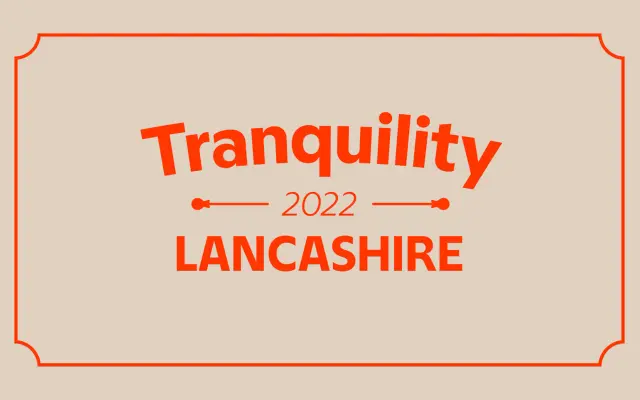
F37 Maulstick
A smooth, fluid signpainter-style face that nods to traditional brush lettering, ten styles from Light to Bold with italics.
F37 Maulstick is Rick Banks' tribute to traditional signwriting, a smooth, fluid family that captures the rhythm of a brush in the hand without slipping into pastiche. F37 frame the design around signwriters who set out a sign with chalk and finish freehand, without relying on digital fonts. Ten styles run from Light to Bold with matching italics, sitting well on hospitality, food and drink, craft brands and any identity that wants the warmth of handpainted lettering with the discipline of a complete text family.
F37 describe Maulstick as a smooth, fluid font that pays subtle homage to the craft of signwriting, framing the design around traditional signwriters who set out a sign with chalk and write it freehand. A ten-style family with five weights from Light to Bold and matching italics.